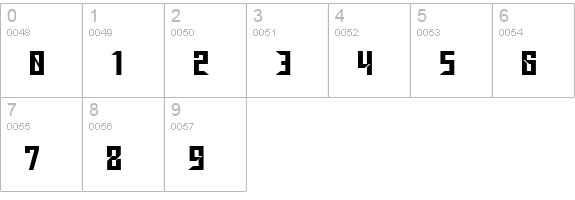
Gagarin Star Mix Font Details
Introducing Gagarin Star Mix font, a captivating typeface that will take your design projects to new heights. With its unique blend of modern and futuristic elements, this font is sure to grab attention and make a lasting impression. Gagarin Star Mix font boasts a harmonious mix of sharp edges and smooth curves, creating a visually striking look that is both elegant and dynamic. Its versatile nature makes it perfect for a wide range of projects, from branding and logo design to advertising and editorial layouts. One of the most remarkable features of Gagarin Star Mix font is its ability to convey a sense of energy and movement. Each letter seems to dance across the page, creating a sense of rhythm and excitement. This makes it an ideal choice for projects that require a touch of playfulness and creativity. But what makes Gagarin Star Mix font even more enticing is the fact that it is available for free! Yes, you read that right. You can freely download this extraordinary font at FontsMarket.com. This means that you can elevate your design game without having to spend a penny. Whether you are a professional designer or a creative enthusiast, Gagarin Star Mix font is a must-have in your font collection. Its eye-catching design, versatility, and the fact that it is freely available make it a true gem. So why wait? Head over to FontsMarket.com and get your hands on this remarkable font today!